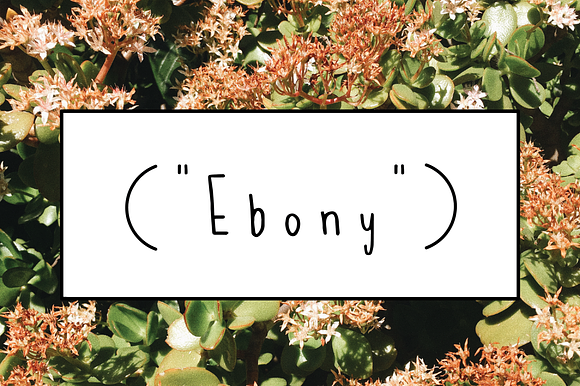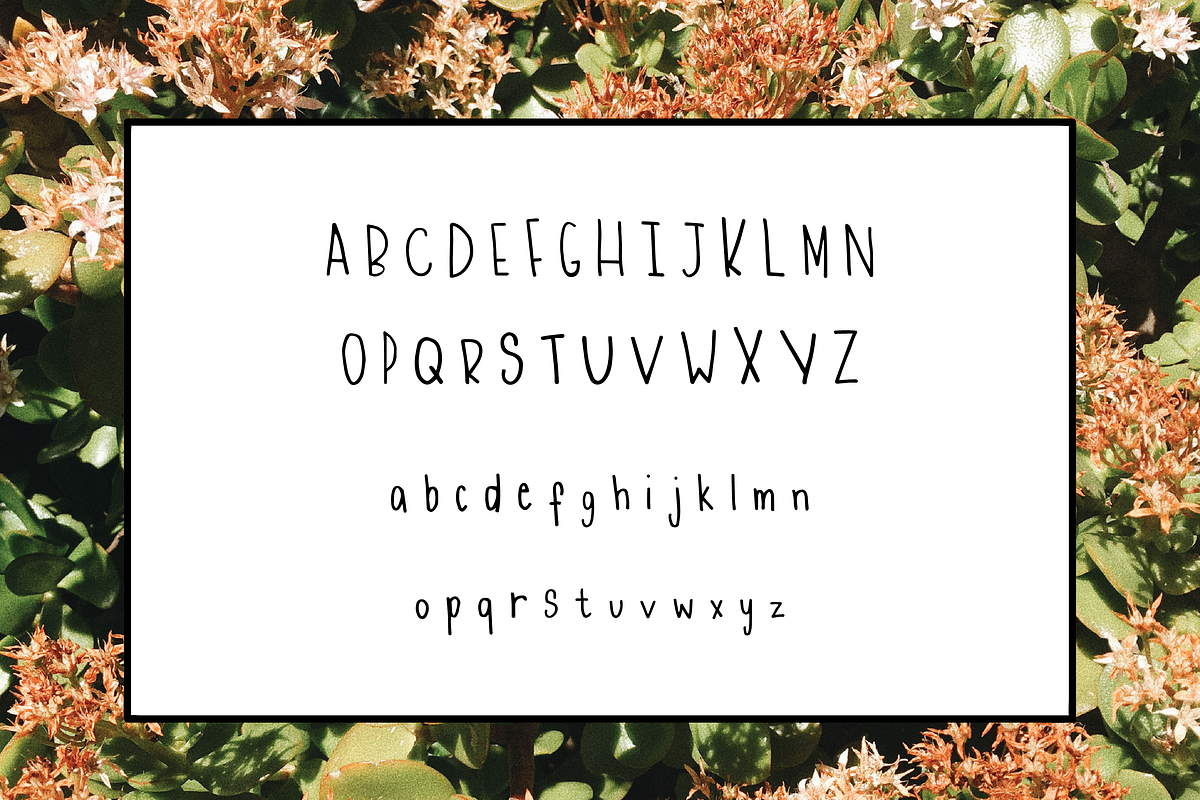
EBONY - a handwritten font
The Ebony is a messy, hand-written font made for cute and simple designs. ✨
standard characters; lowercase, uppercase
basic punctuation .,:;!?#/()-"'